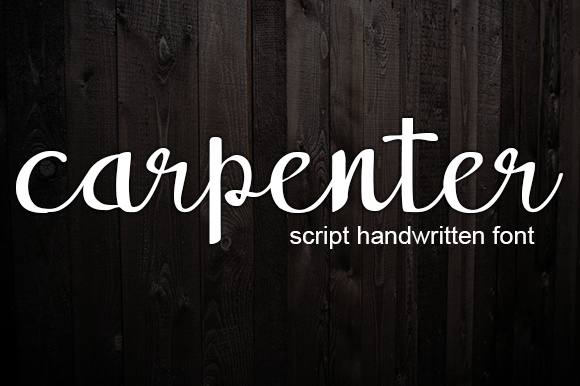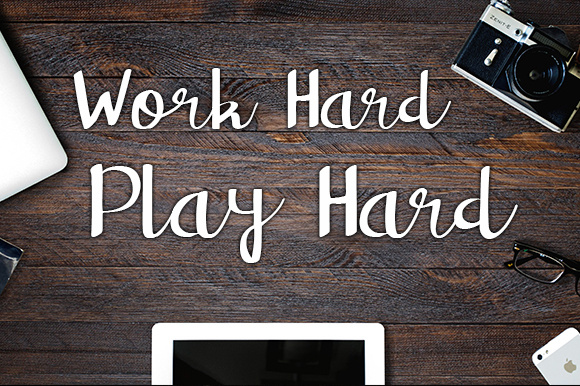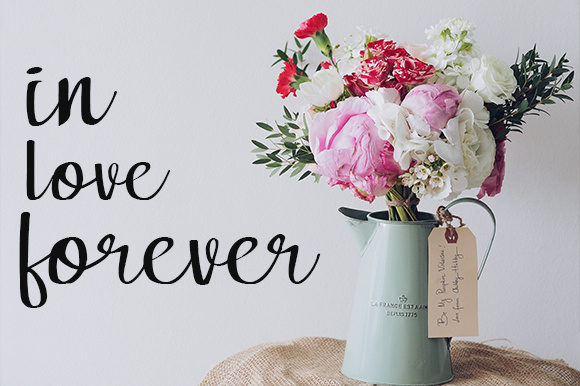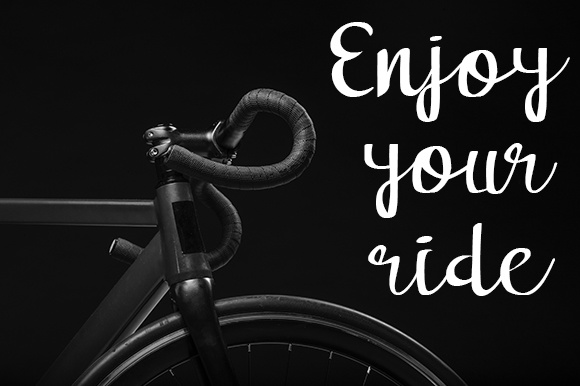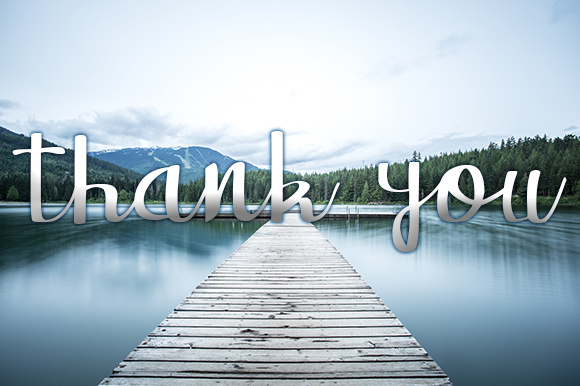
Carpenter Font
About Carpenter Font
The Carpenter is a simply beautiful new script font with an irregular baseline. It looks lovely on quotes, t-shirt, signage, logos, business cards, goods and more!